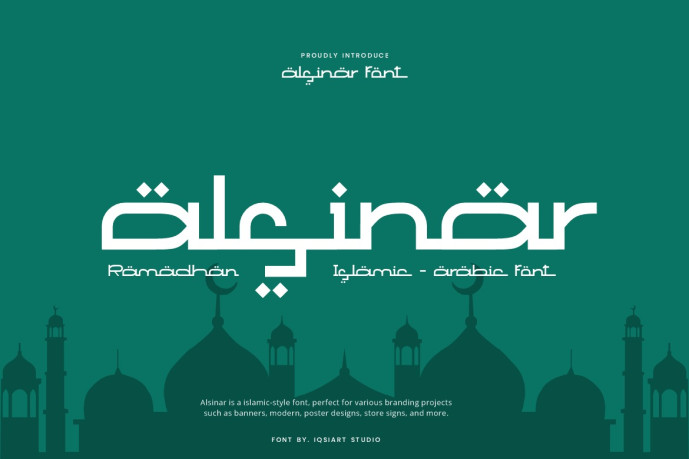
Alsinar – Islamic Font
Designer: IqsiartStudio
Alsinar – Islamic Font is a islamic and authentic display typeface that suits a variety of design needs. We offer a wide range of themes and font styles — visit our profile to explore more and find the perfect style for your project.